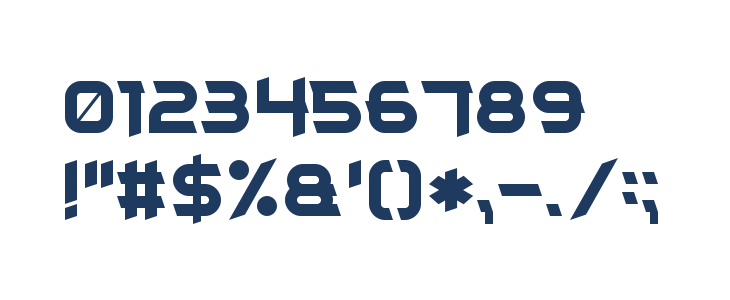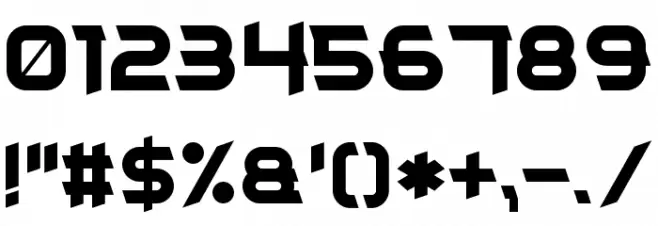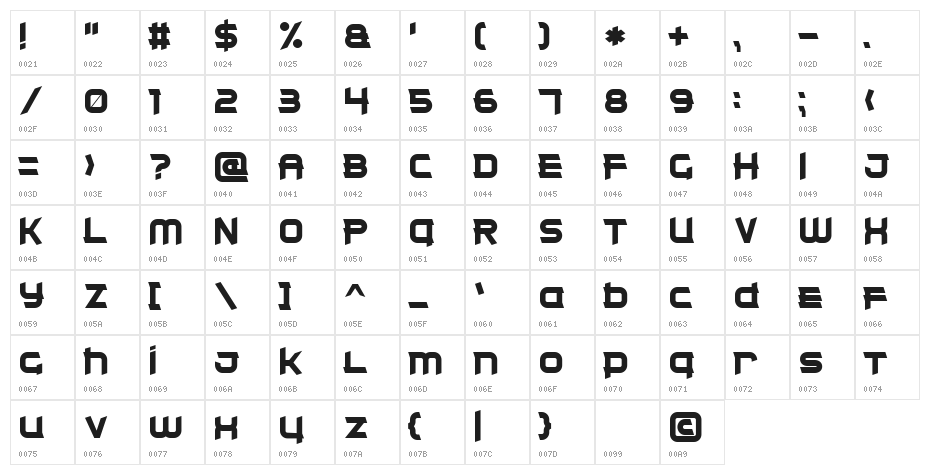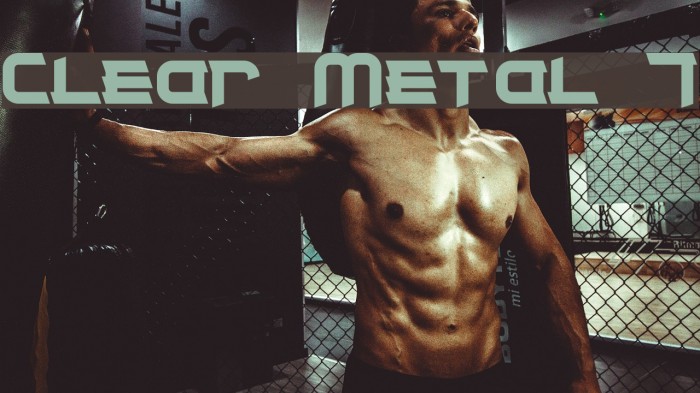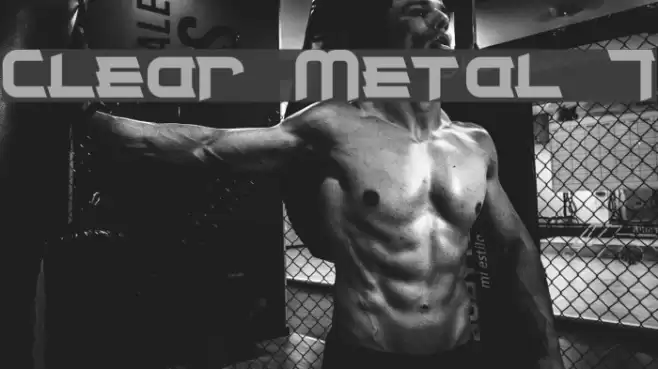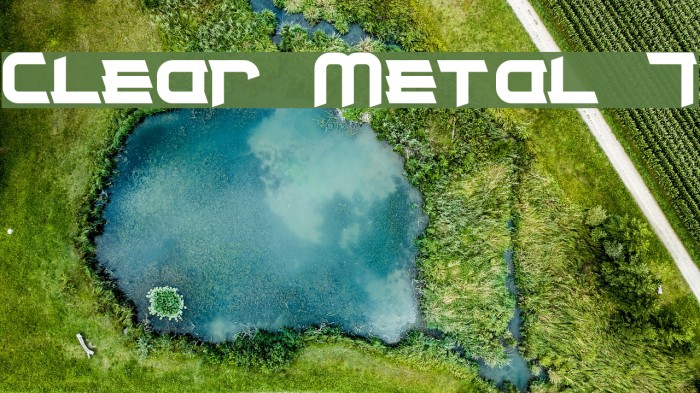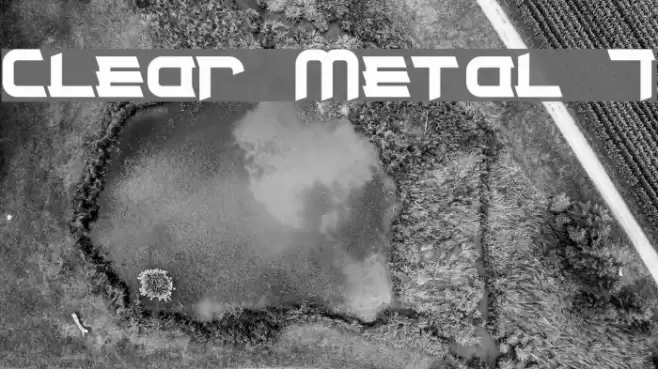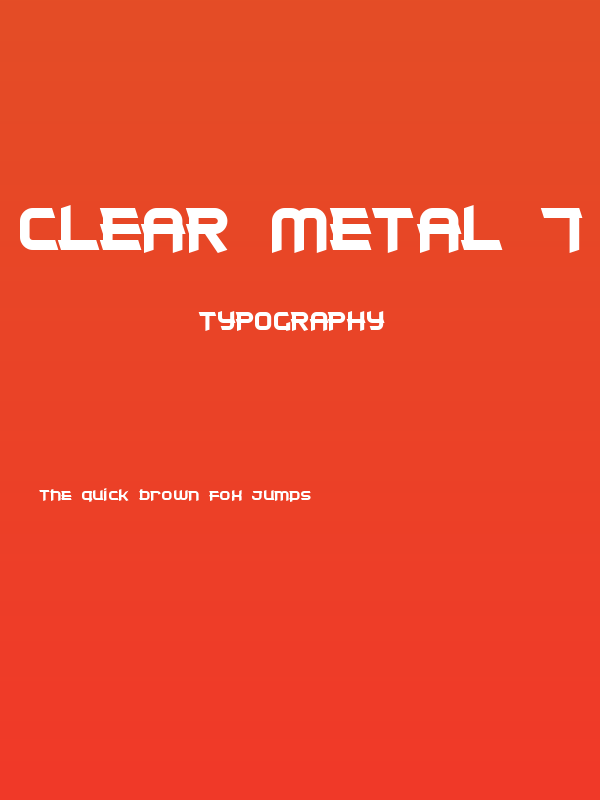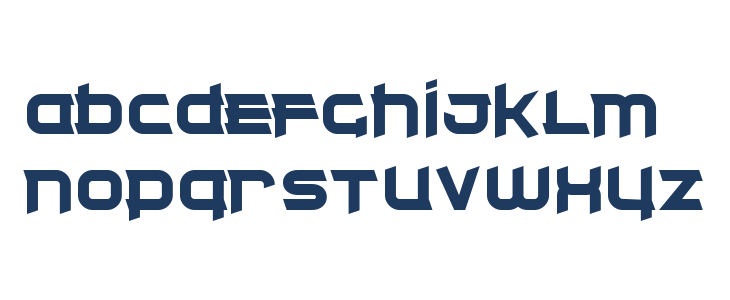
Clear Metal 7 Font
Clear Metal 7 Description
This font features a bold, futuristic design with sharp, angular lines and a distinct geometric style. The characters are crafted with a unique blend of straight edges and pointed corners, giving them a dynamic and edgy appearance. The uppercase and lowercase letters maintain a consistent style, with a strong emphasis on symmetry and balance. The numerals and special characters follow the same design principles, ensuring a cohesive look across all elements. This font is ideal for projects that require a modern and impactful aesthetic, such as technology branding, sci-fi themes, or video game titles.
| Proposed Projects | Ideal for technology branding, sci-fi themes, video game titles, and modern posters. |